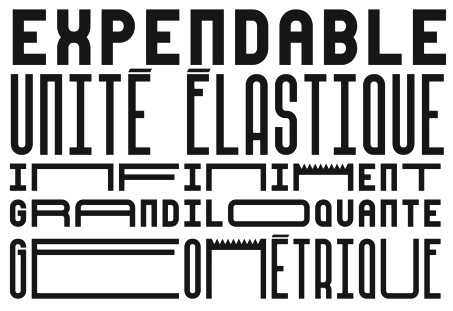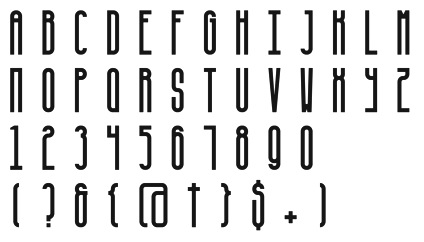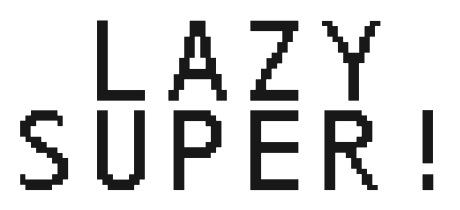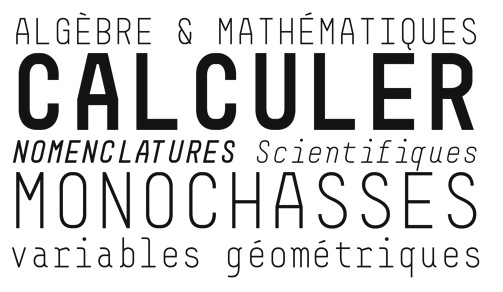
Collectif MBC (was: MBC Graph)
Graphic design collective in Besançon, France, est. 2012, consisting of graduates in the Masters program of the École des Beaux-Arts de Besançon. Their typeface creations include Plumber (2014, rounded slab serif), Esposito (2014, rounded sans), Polaris (2014, rounded sans), Juliano (2013, rounded sans), Sept Nains (2014, a sans-slab serif-serif type system), Raymond (2014, slab serif), Monolab (2014), Aftur (2014, a sans caps typeface that is partly art deco and partly futuristic), Antique Calque (2014, a layered typeface system), Lazy Super (2014, a pixel face) and the variable width and variable height experiment called Expandable (2014).
Typefaces from 2015: Gnome (a sans done for the Centre RĂ©gional du Livre Franche-Comté), Monocle (a sans typeface for Cyclop Jazz Action), Ploum (am art nouveau stencil), MFB (an art deco poster typeface family named after Morris Fuller Benton). Behance link. Tumblr link. Behance link